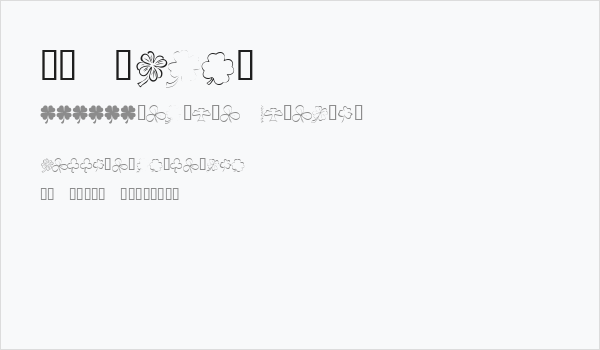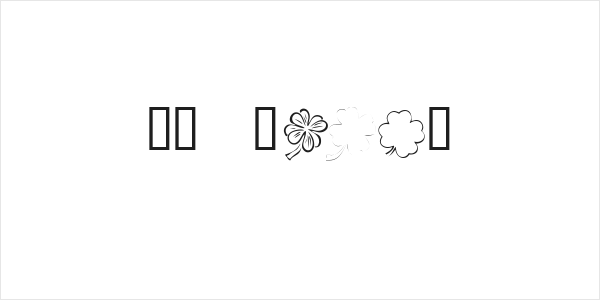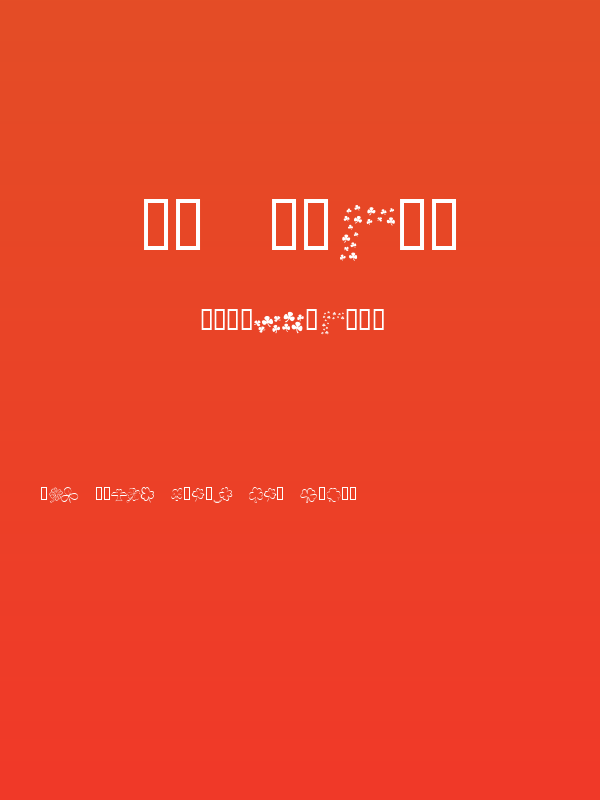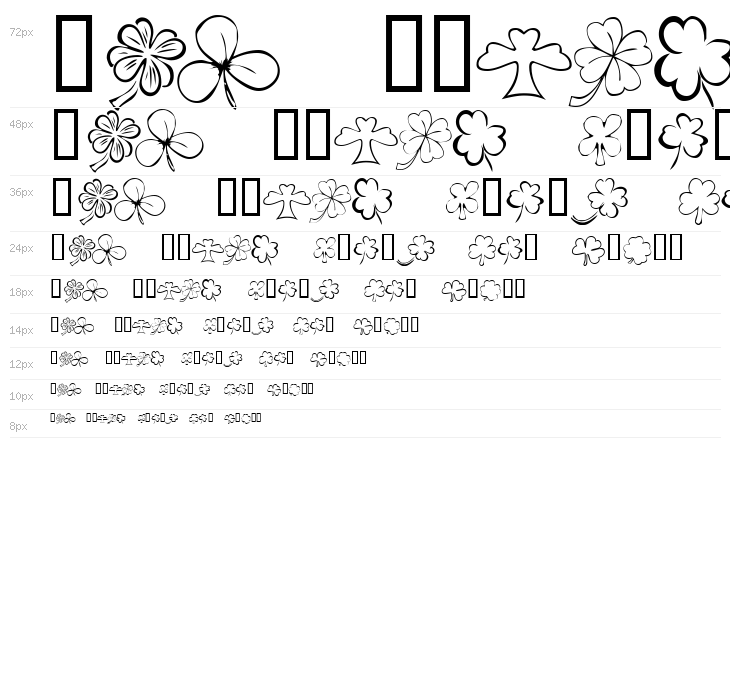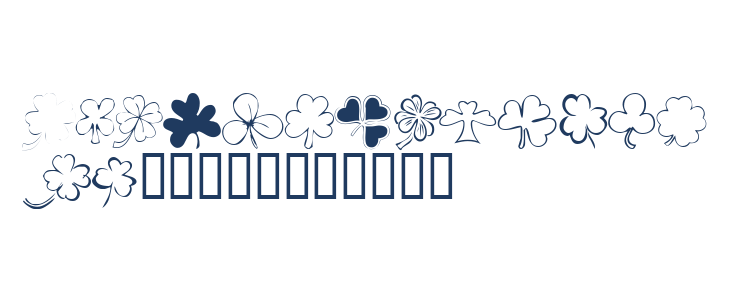
KR Shams Font
KR Shams Description
A decorative dingbat font featuring various shamrock and clover illustrations in different styles and arrangements, with playful and whimsical elements. The glyphs are primarily pictorial rather than alphanumeric.
| Overall Style | Decorative, Playful, Thematic |
| Use Case | Decorative elements, Borders, Themed graphics |
| Proposed Projects | St. Patrick's Day invitations, greeting cards, festive banners, scrapbooking, themed party decorations. |